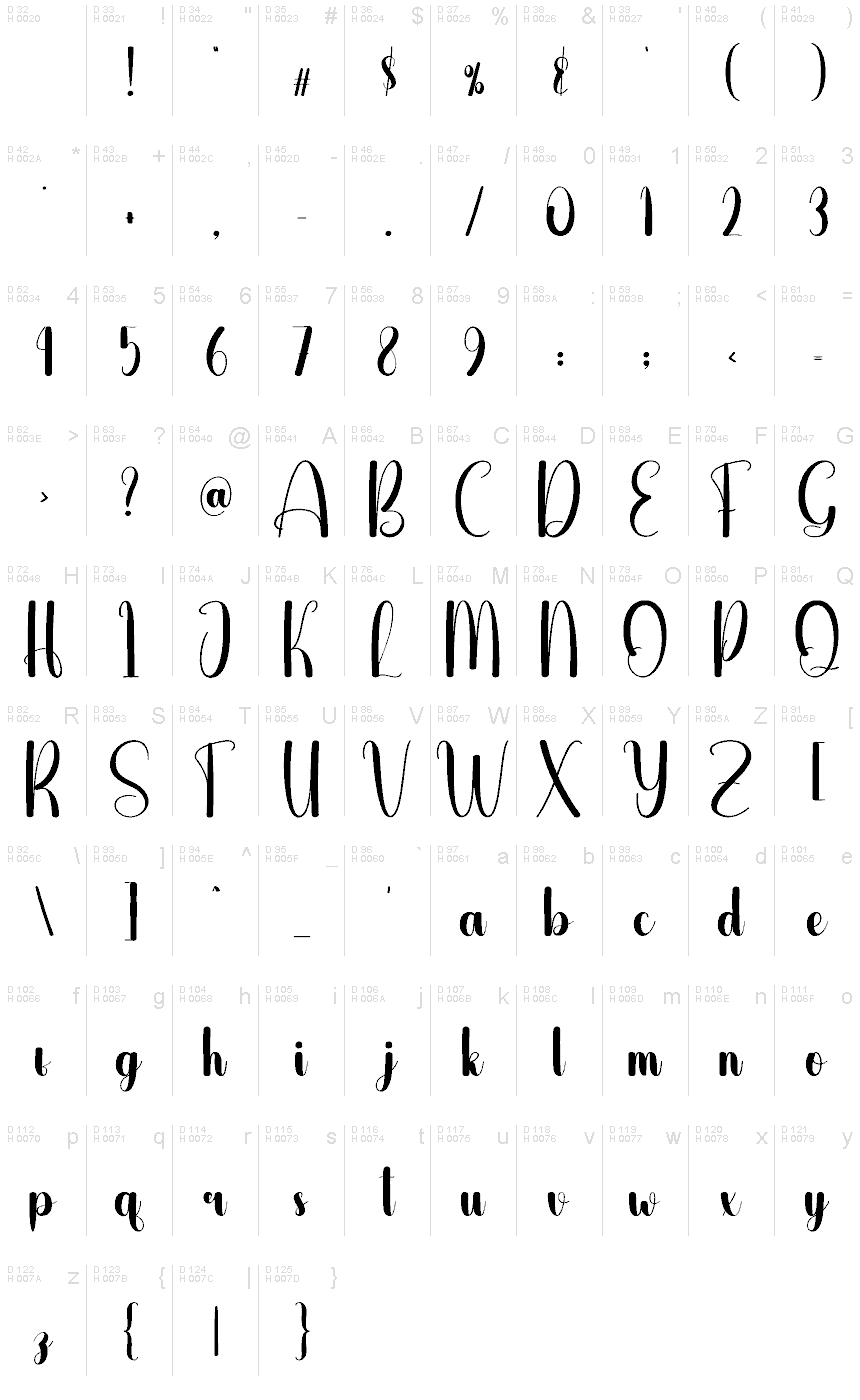
Bayfresh
Bayfresh font by Andi Moz is an elegant free handwritten font with graceful and expressive curves. It features an artistic flair with sophistication, created by smooth strokes, playful lines, thin parts, accentuated ends, and a feminine touch. Try this delicate design for your fancy presentation or branded product.
Use Bayfresh in your logos (fashion brands), typography quotes, vinyl covers for music albums, magazine headers or subheaders, restaurant VI options (menus), event invitations (weddings & baby showers), personalized decorations/artworks/gifts/signatures as well as digital materials such as websites/social media graphics & posts/templates.